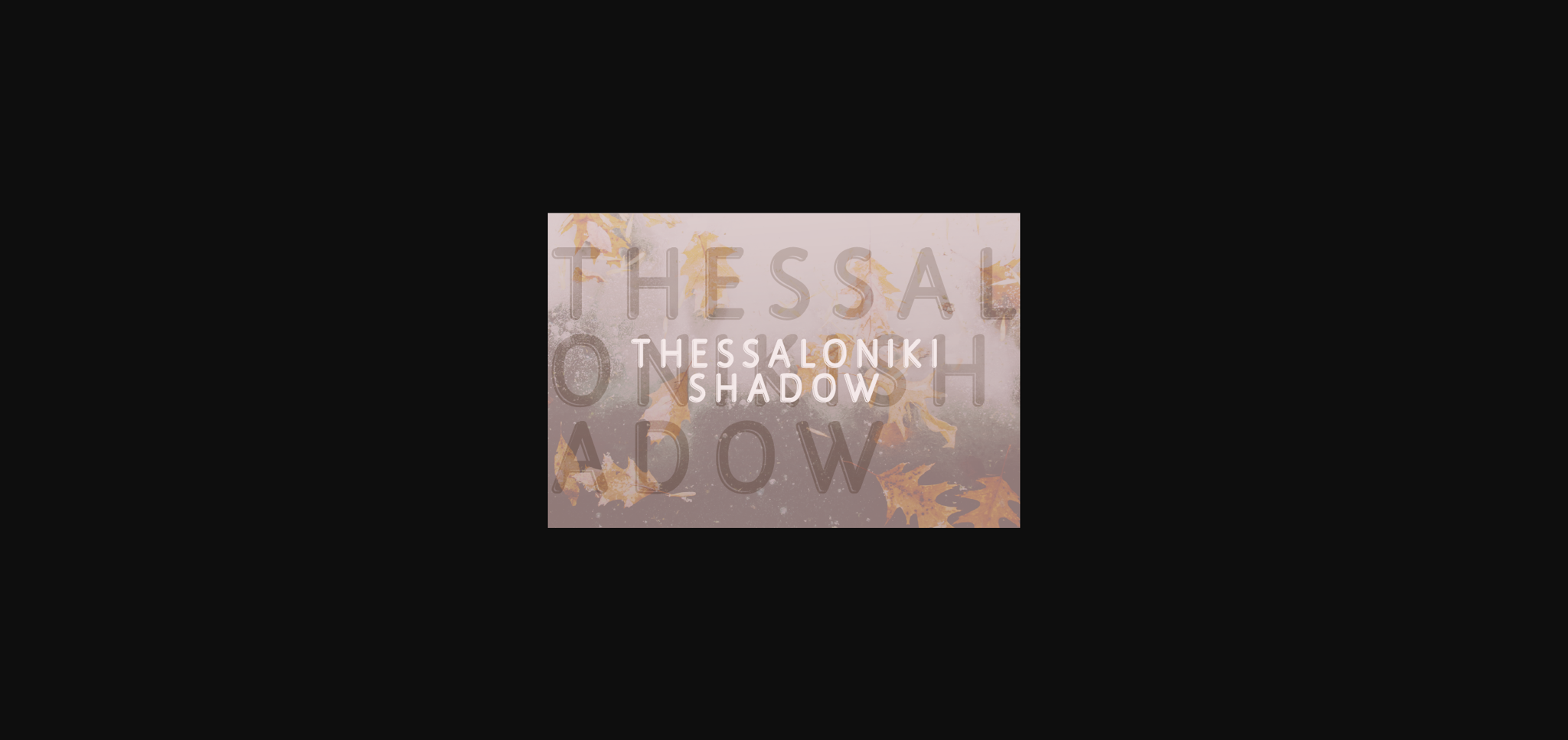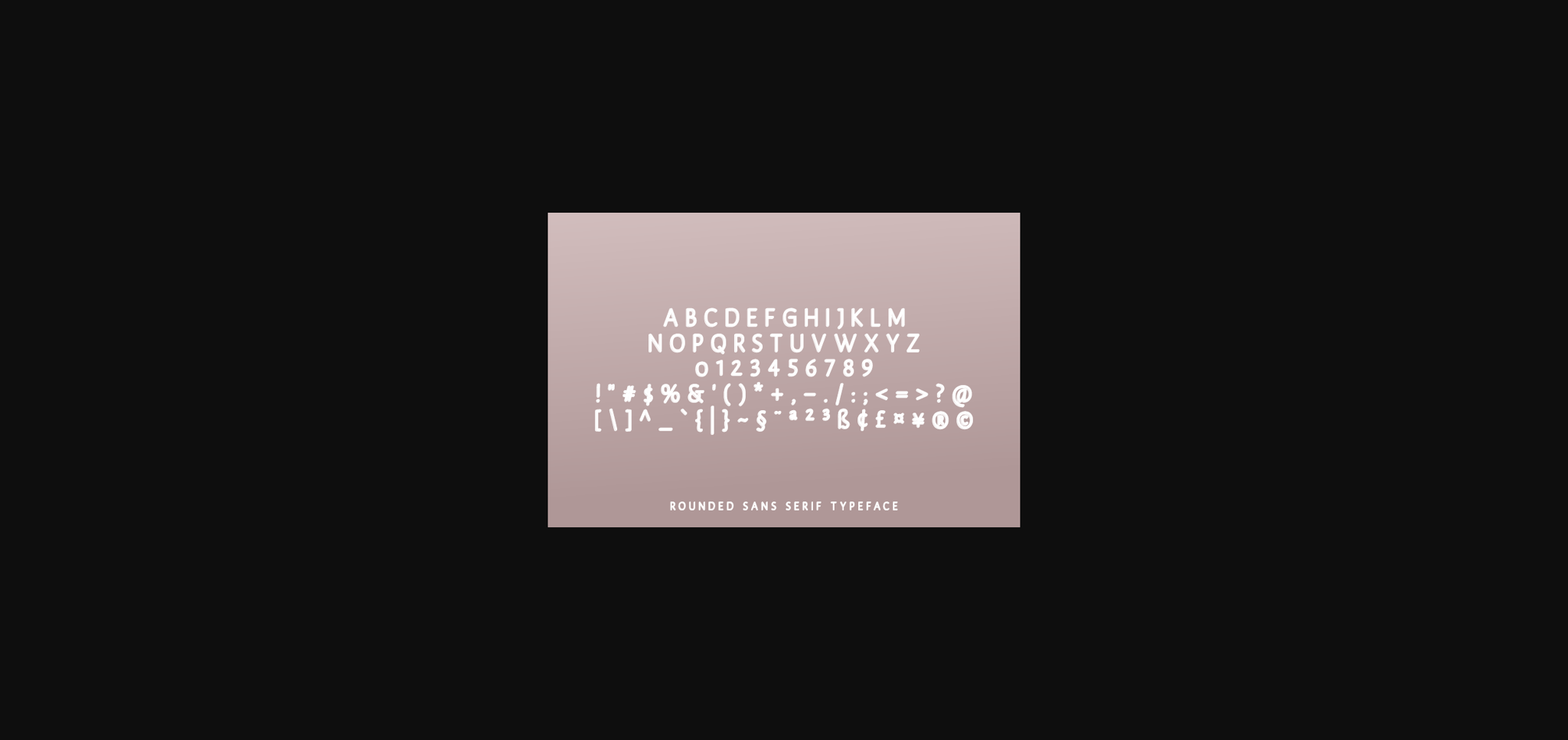
Thessaloniki Shadow Font
About Thessaloniki Shadow Font
Thessaloniki Shadow is a cute and casual sans serif font with an incredibly friendly feel. Clean and modern, this font is the perfect fit for all of your logos, branding, social media, and crafty DIY projects.